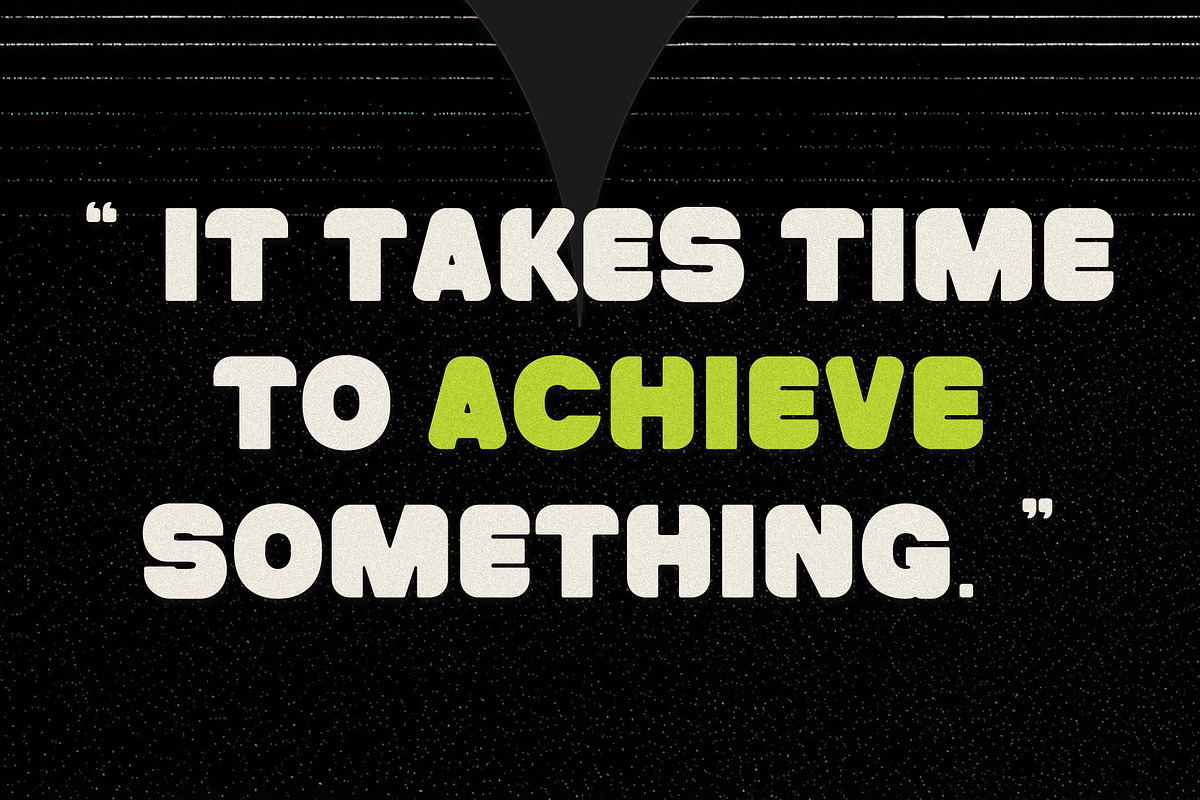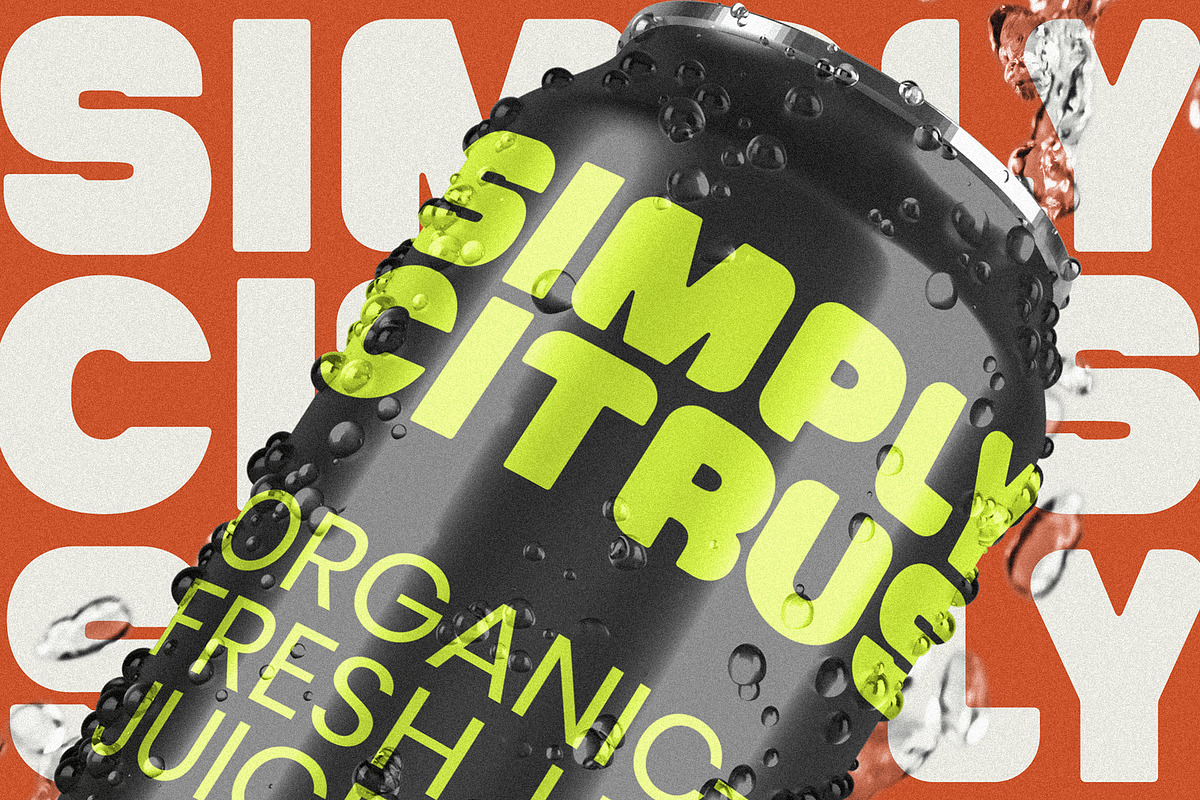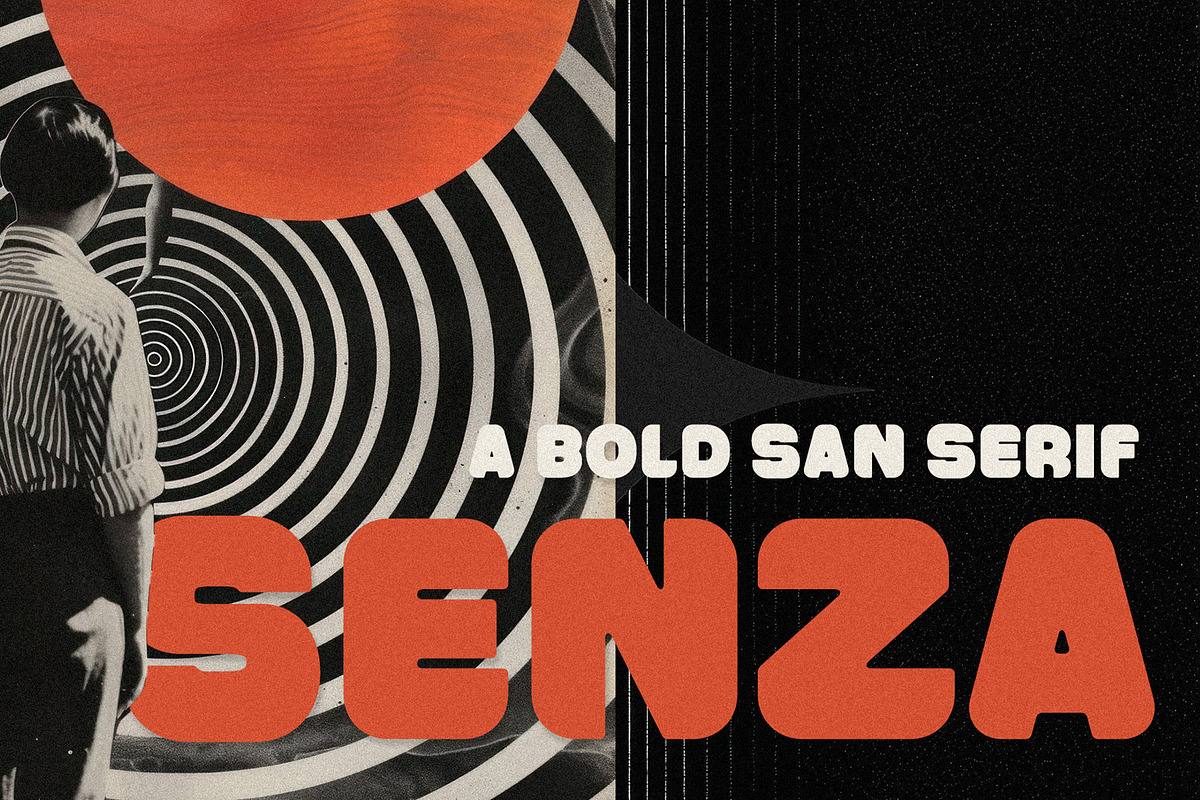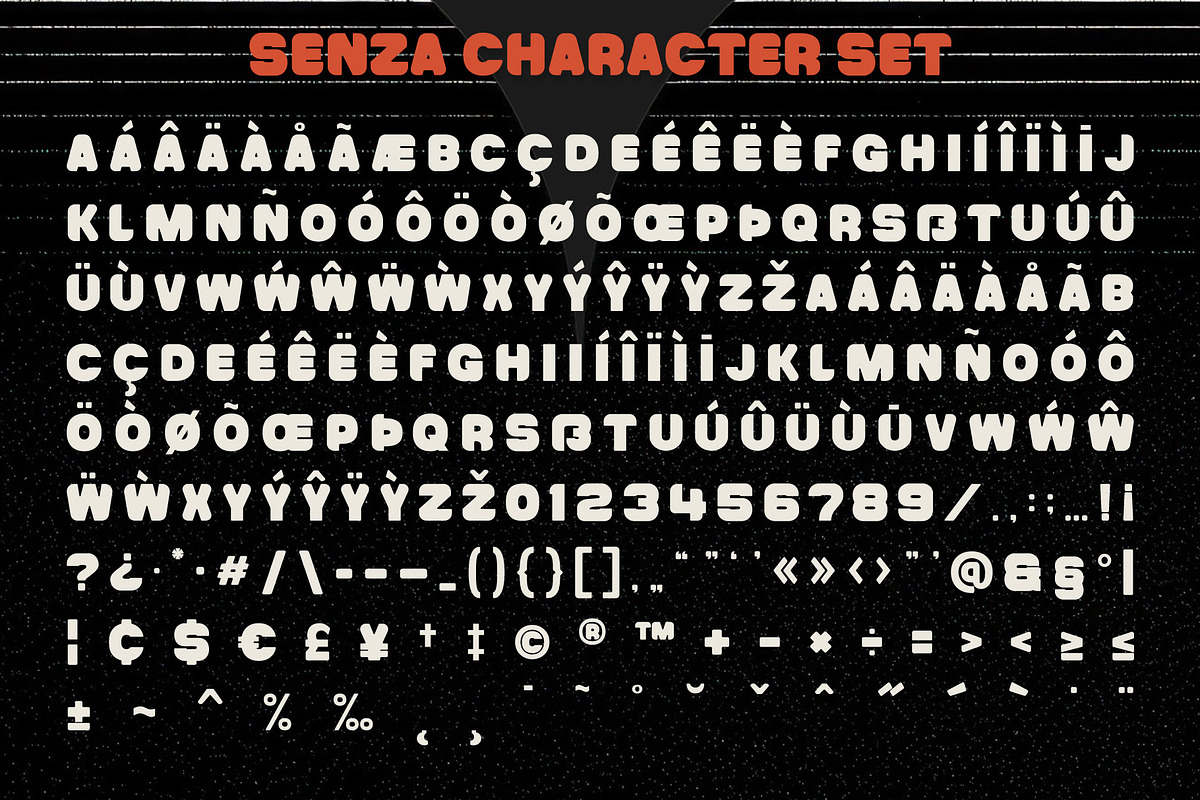
Senza - Modern Bold Sans
Introducing Senza - Modern bold sans. Senza is a simple, bold, san serif font, This type of font is very suitable for your various needs such as branding projects, logos, social media posts, advertisements, labels, product packaging, photography, wedding designs, watermarks, invitation product designs, stationery, and any project.